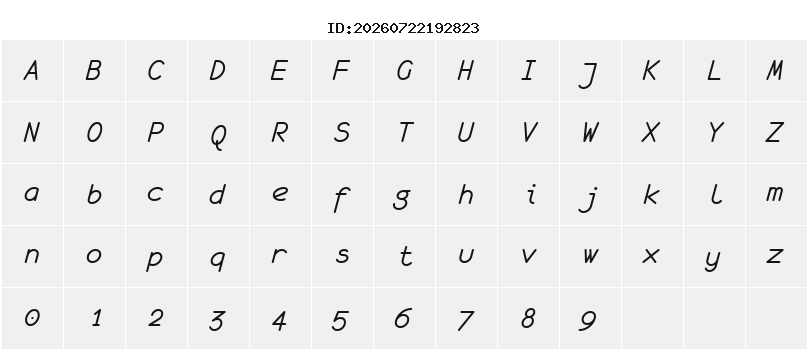
monofur Preview
• Font Name: monofur
• Font Style: italic
• Font ID: unci monofur italic
• Full Font Name: monofur italic
• Version: unci 1.0 2000-04-14
About monofur.ttf
monofur.ttf is a modern, elegant sans-serif font designed for ultimate readability and visual harmony. Perfect for branding, headlines, web design, and print materials.